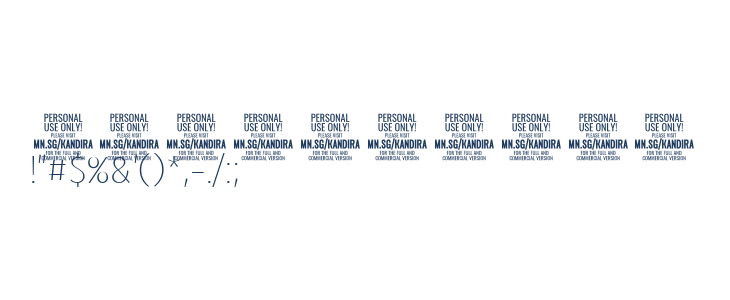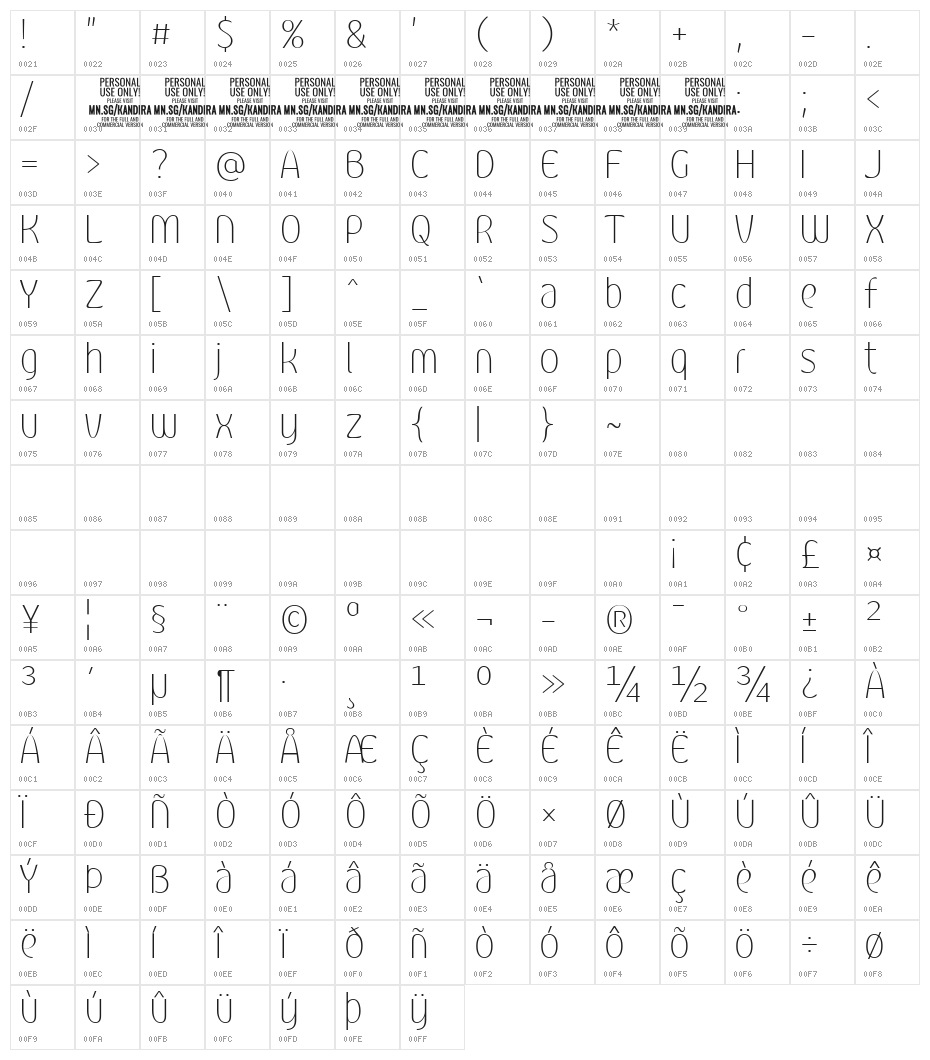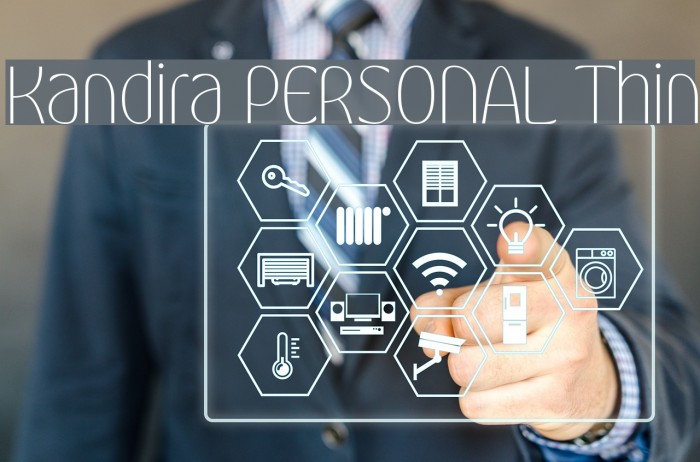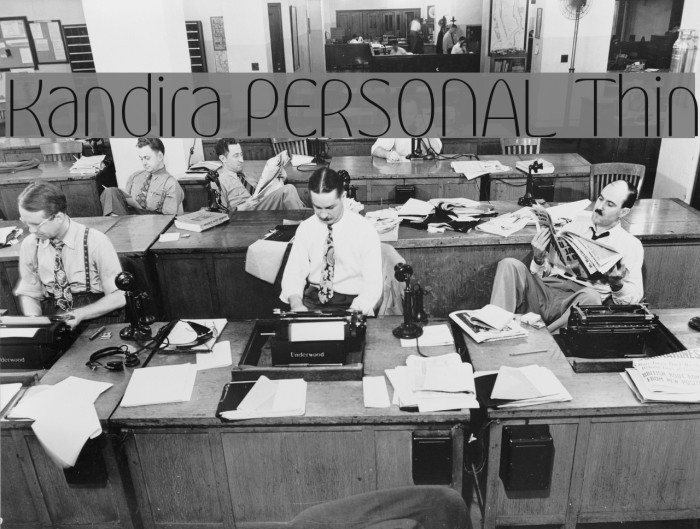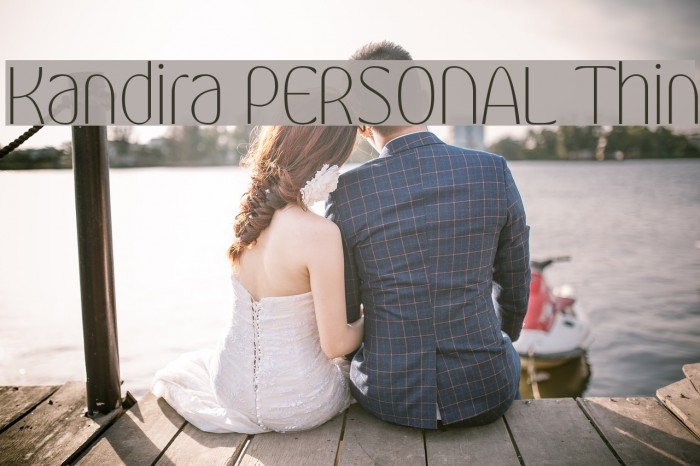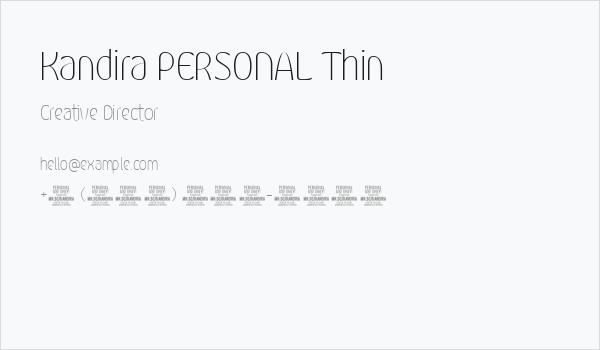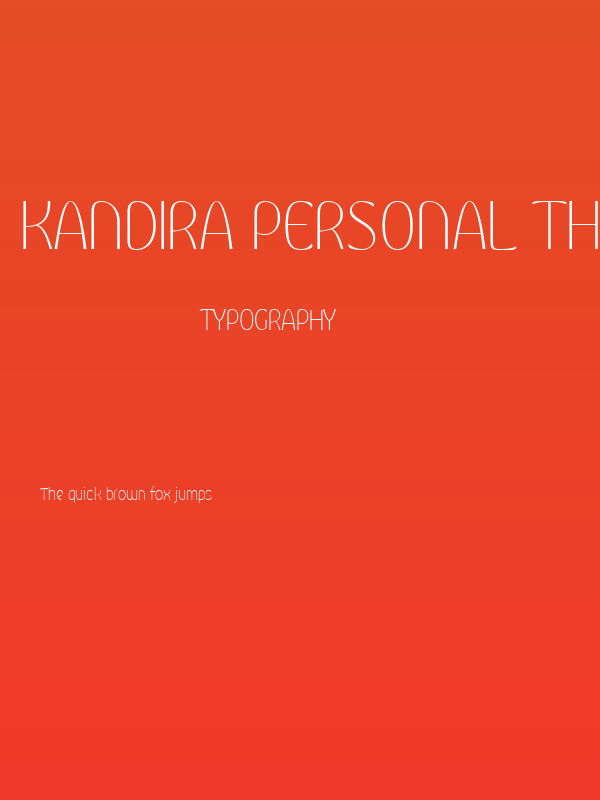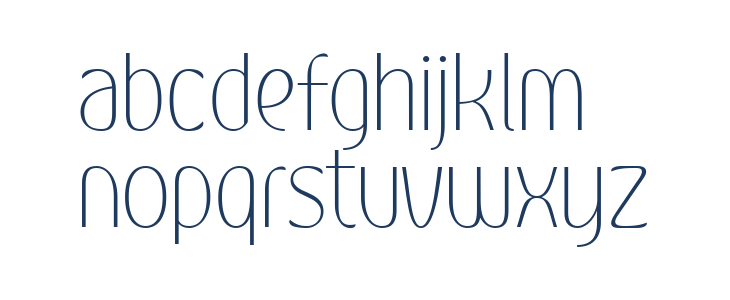
Kandira PERSONAL Thin Font
Kandira PERSONAL Thin Description
This font features a sleek and modern design with thin, elongated characters that convey elegance and sophistication. The uppercase and lowercase letters maintain a consistent height, contributing to a uniform appearance. The strokes are smooth and slightly curved, giving the font a gentle flow. The numerals and special characters are designed to match the overall style, ensuring a cohesive look across all text elements. The font's minimalistic approach makes it versatile for various design applications.
| Proposed Projects | Ideal for fashion branding, minimalist logos, modern website headers, and elegant invitations. |